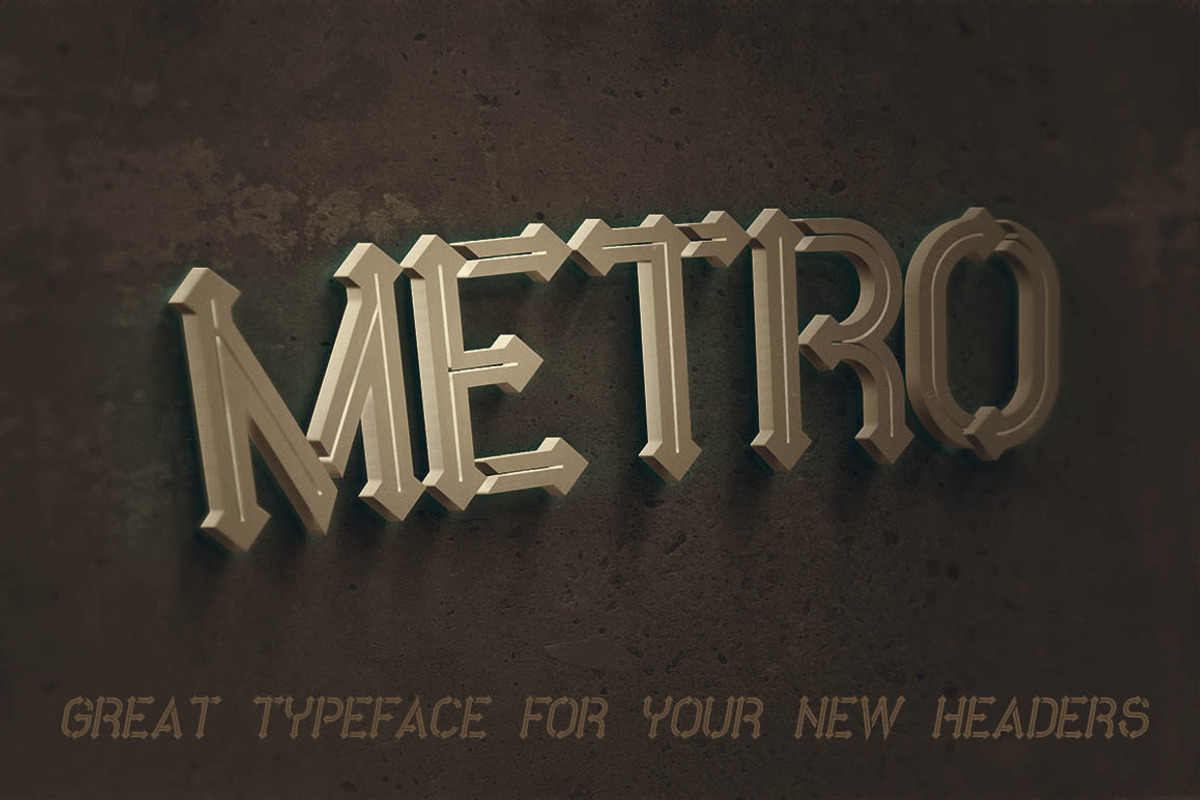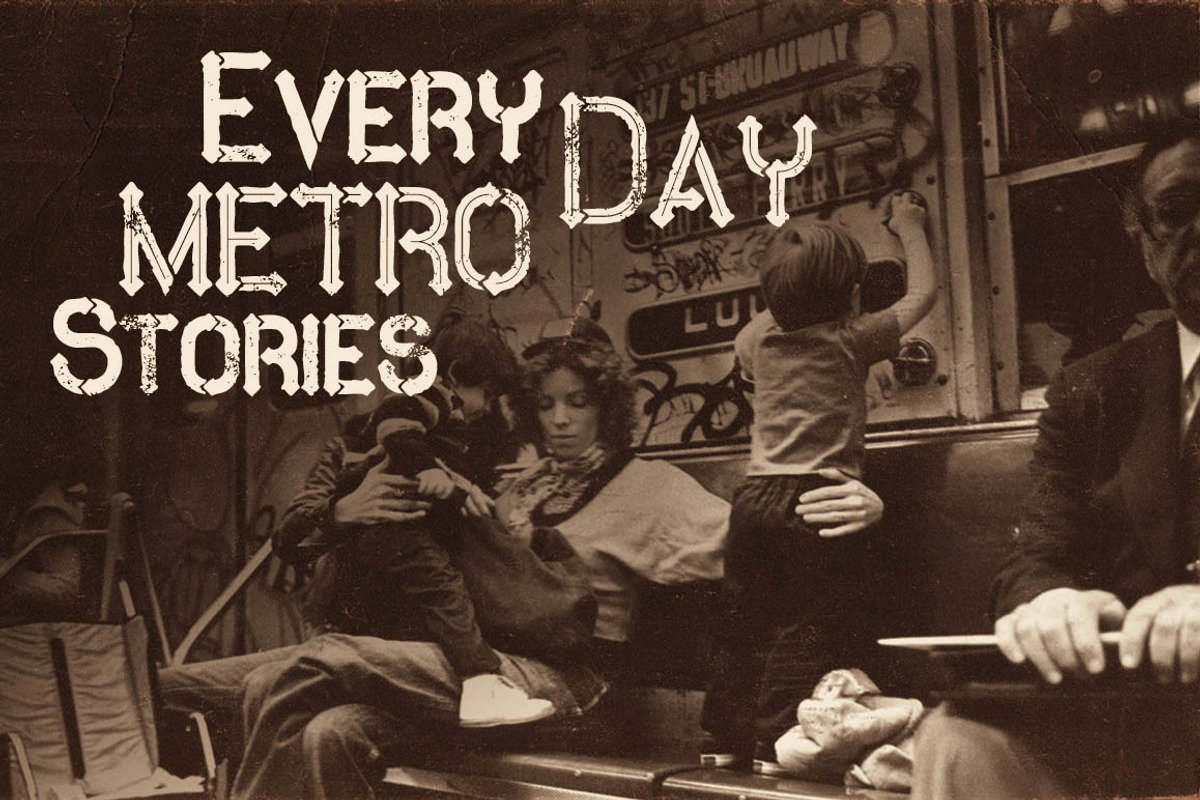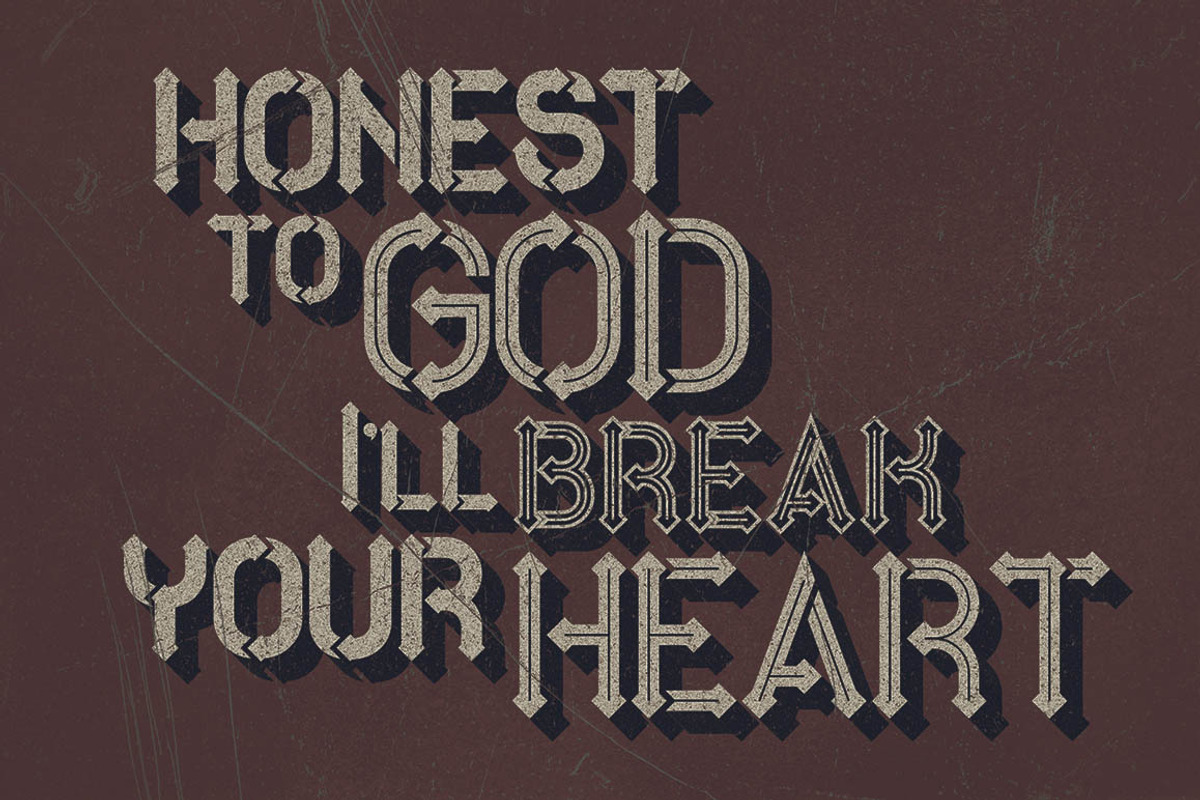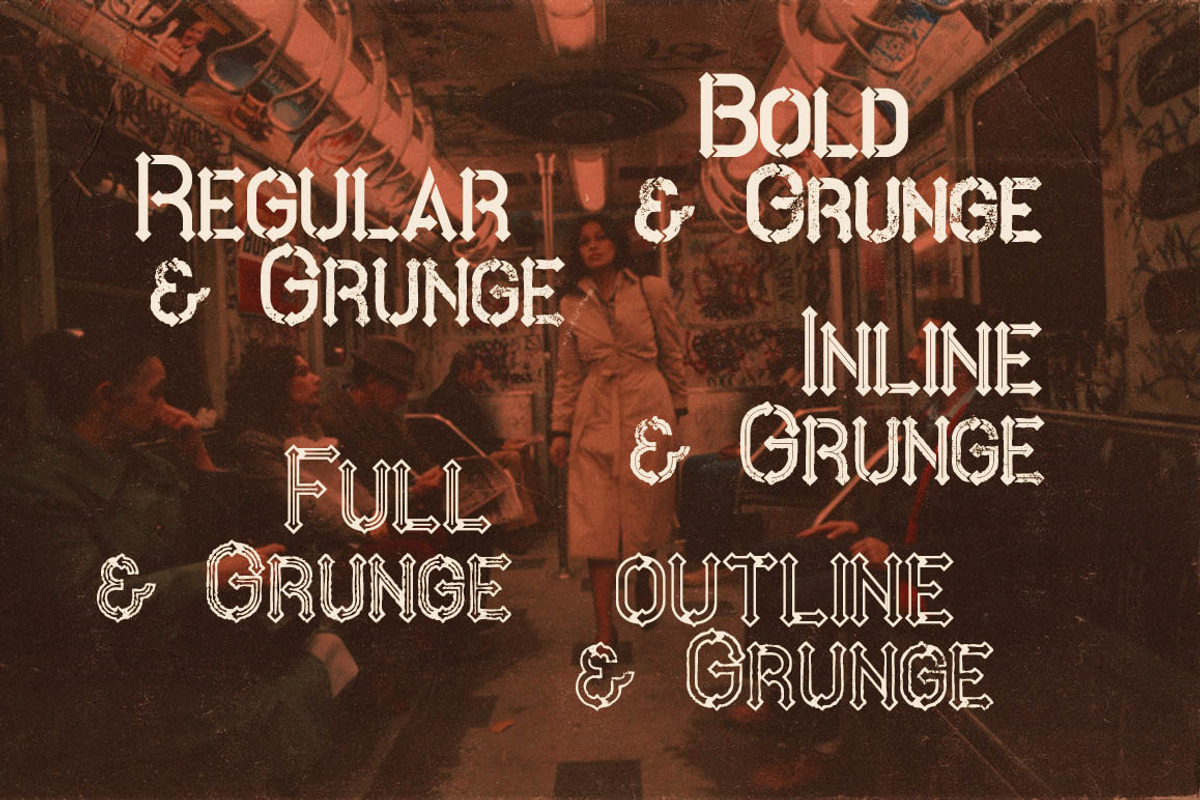
Metro - 10 Fonts Family
Metro - 10 Fonts Family by MIIM is a font selected for branding, posters, packaging, typography.
Why Metro - 10 Fonts Family is worth a look
Metro - 10 Fonts Family by MIIM fits naturally into Branding, posters, packaging, typography.